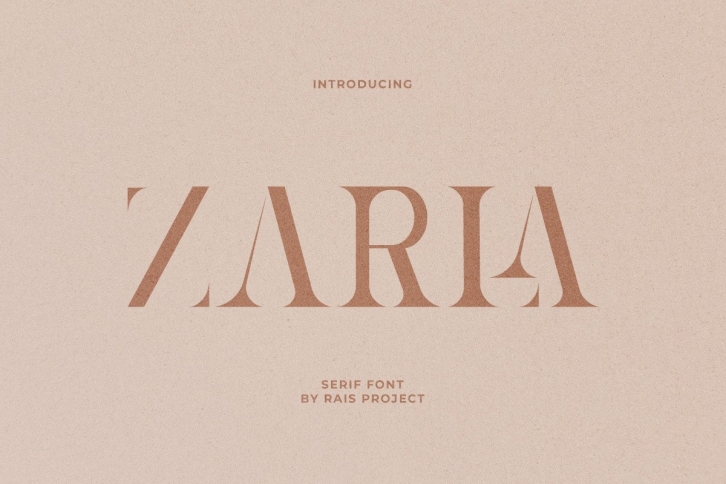
Zarla is a modern, assertive and stylish serif font. Fall for its ravishing style and use it to create gorgeous wedding invitations, beautiful stationary art, eye-catching social media posts, and much more!Â